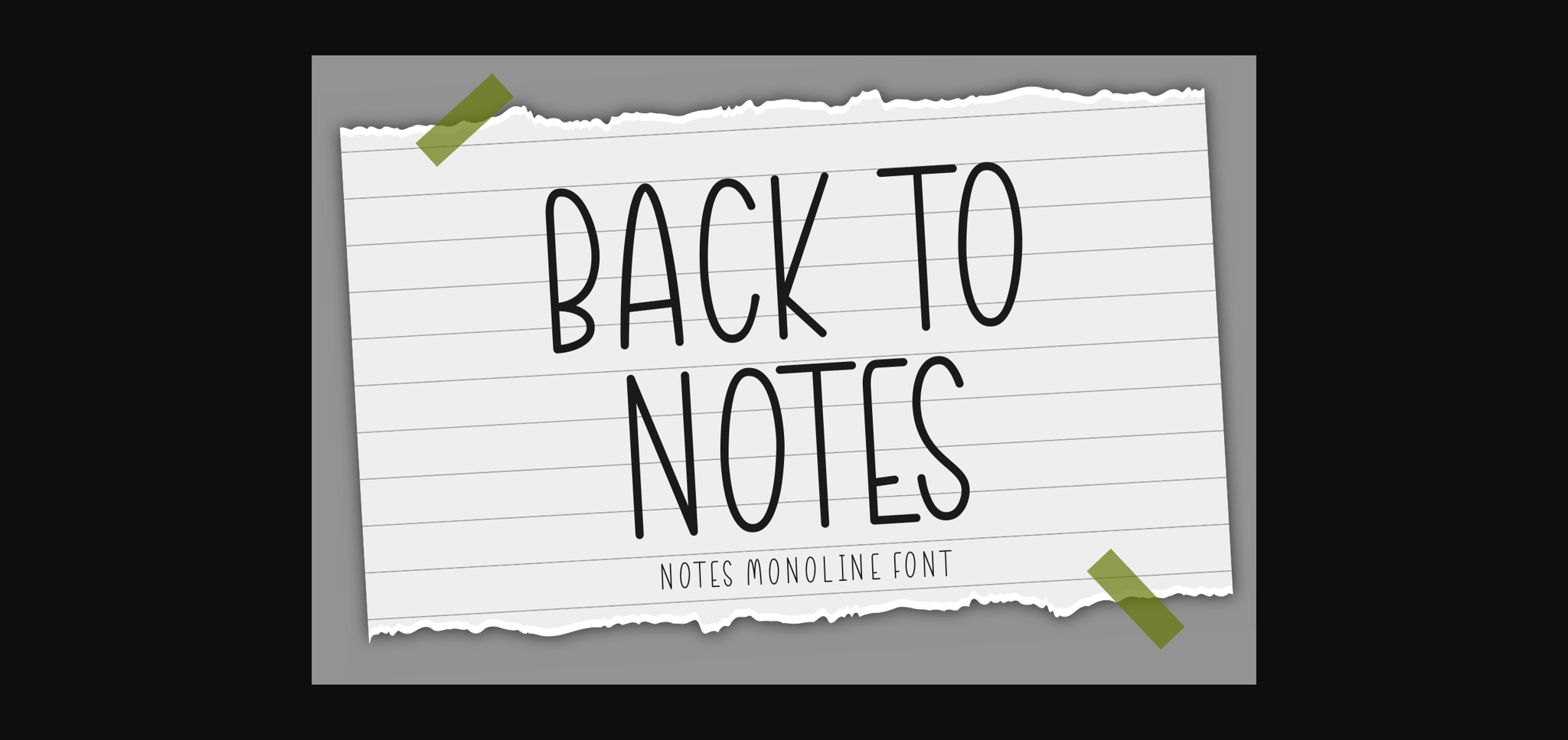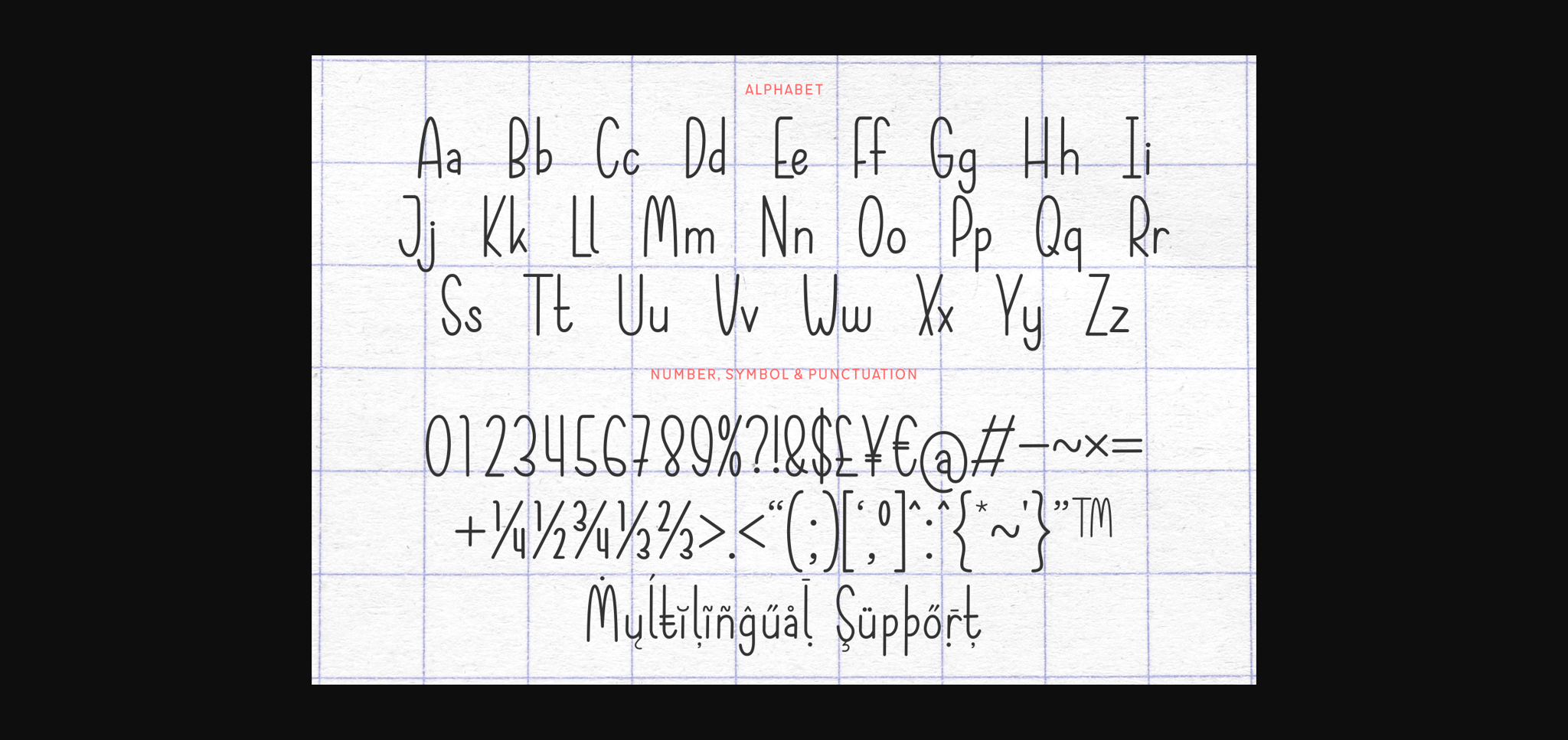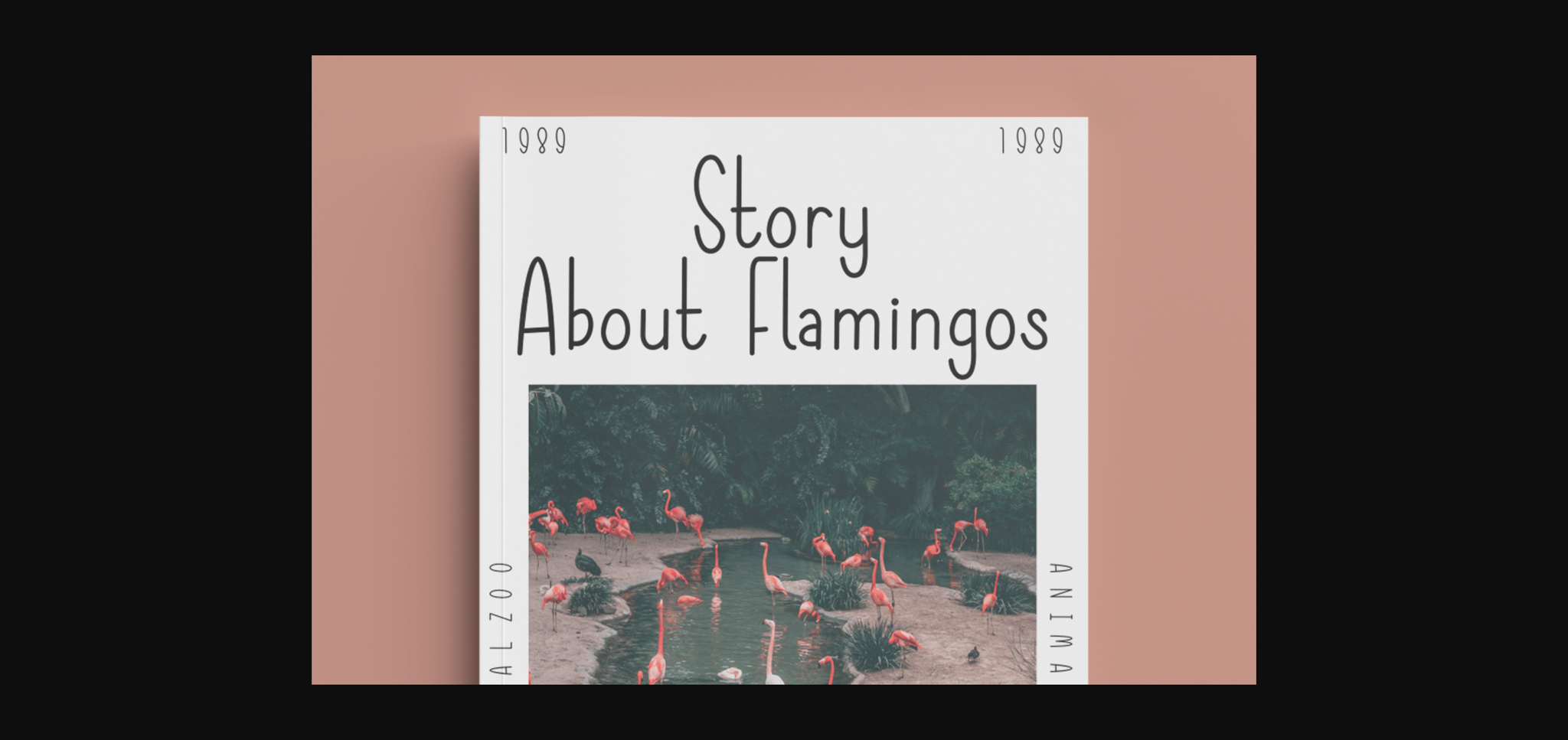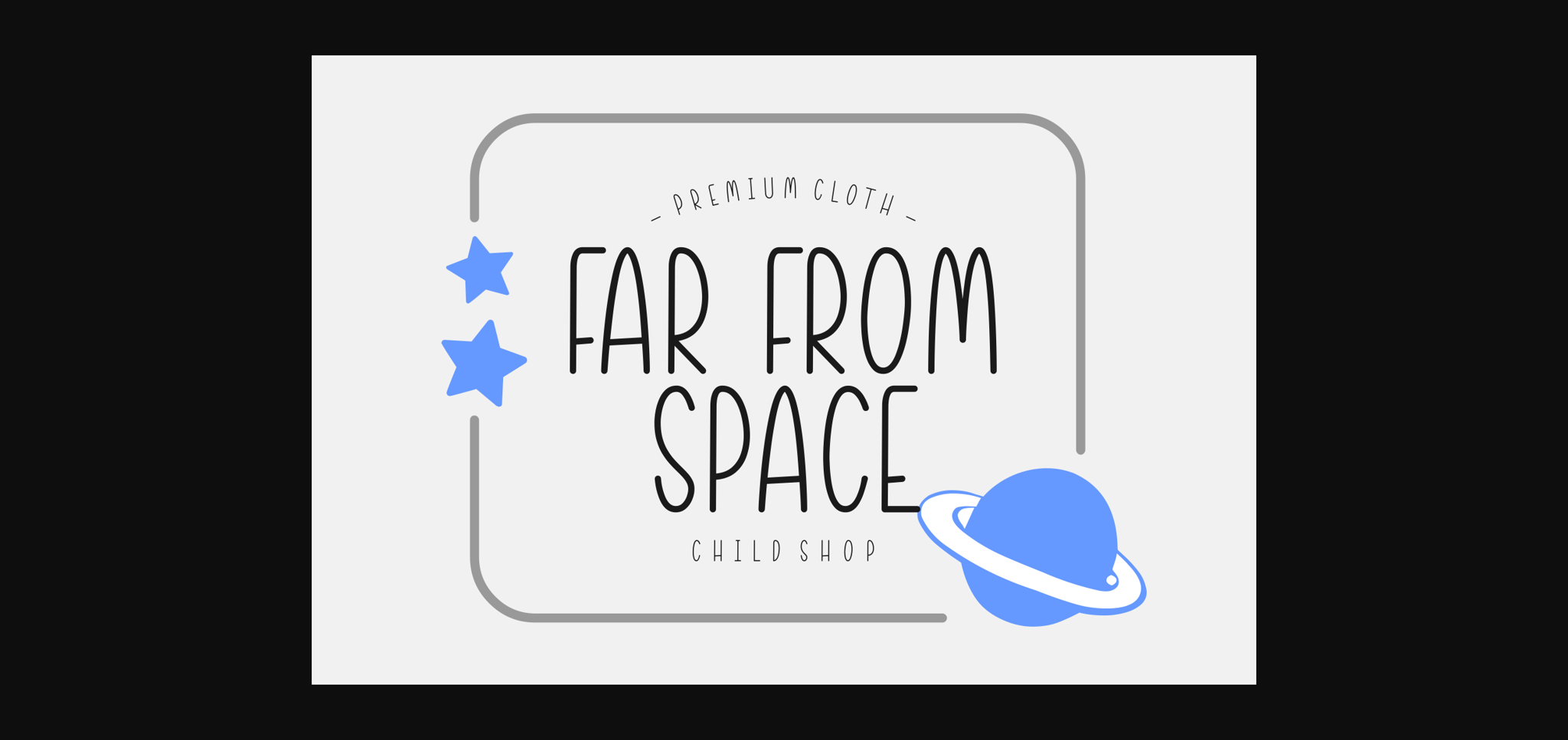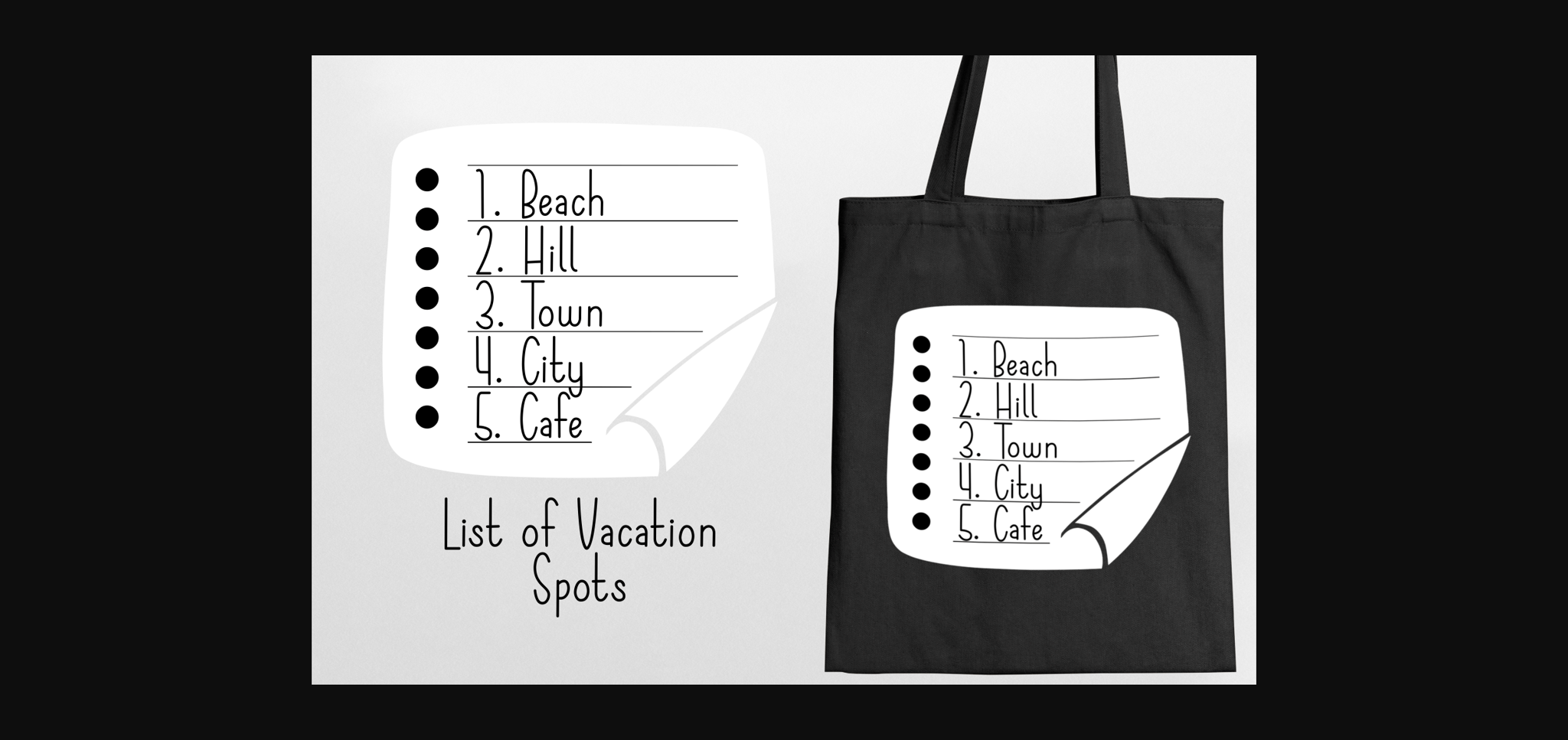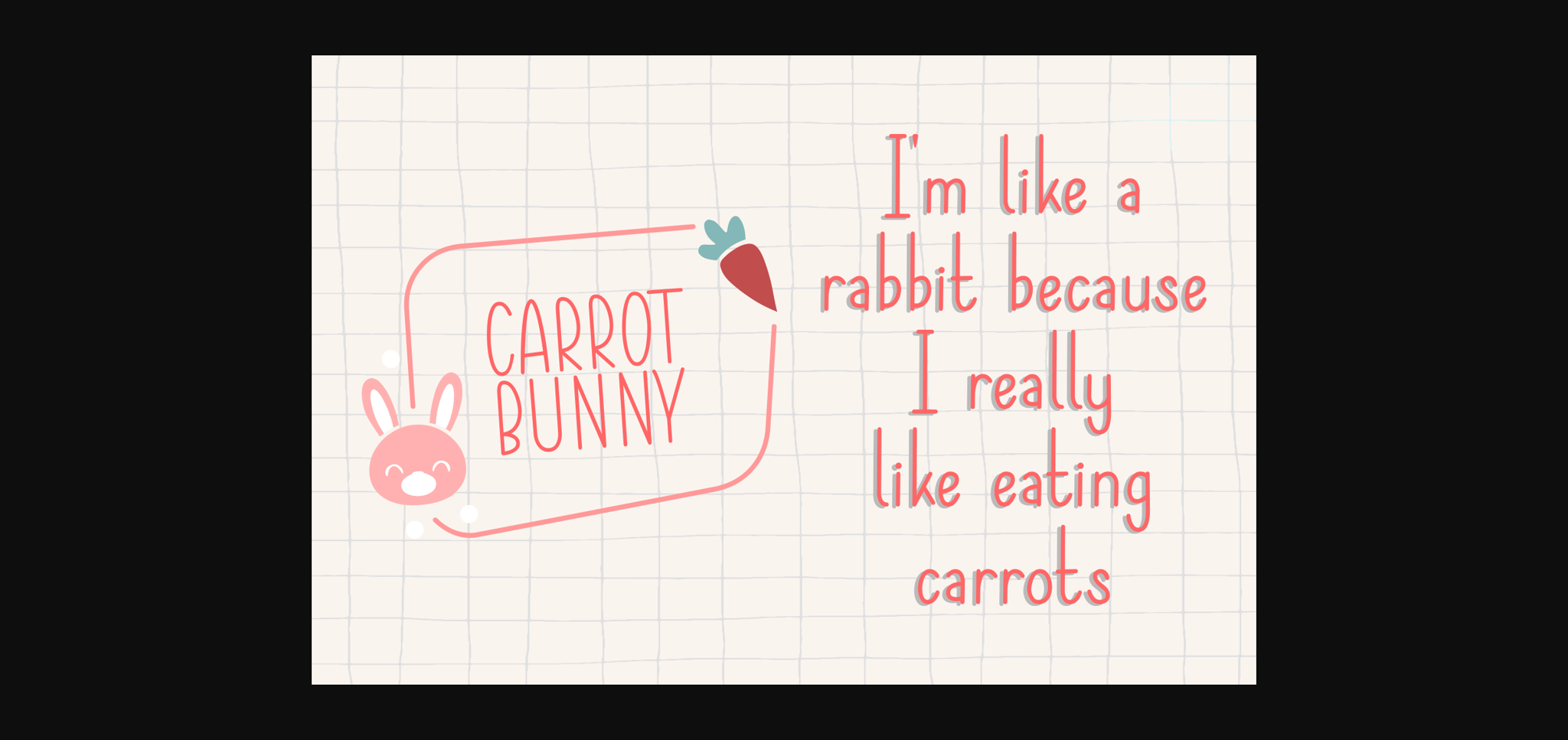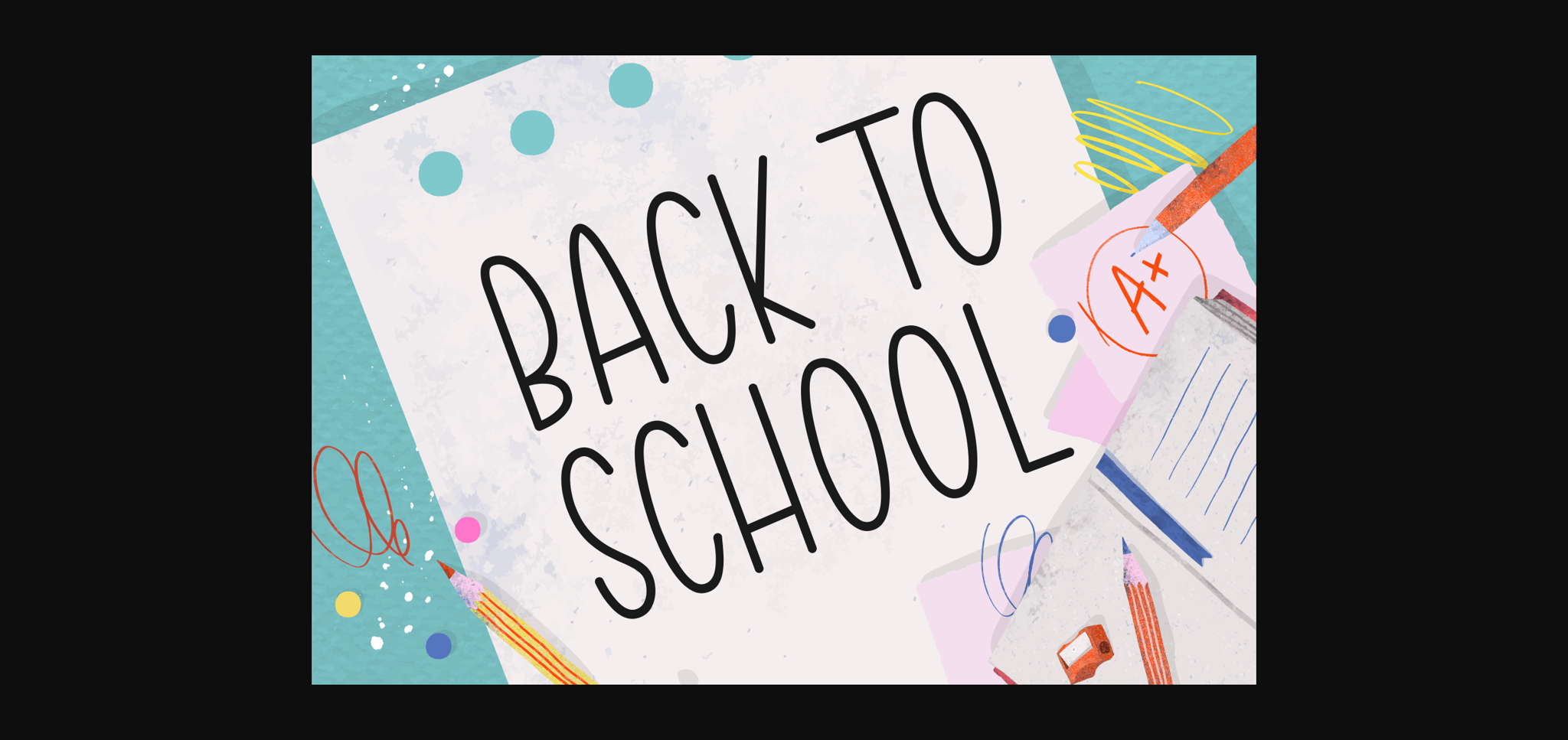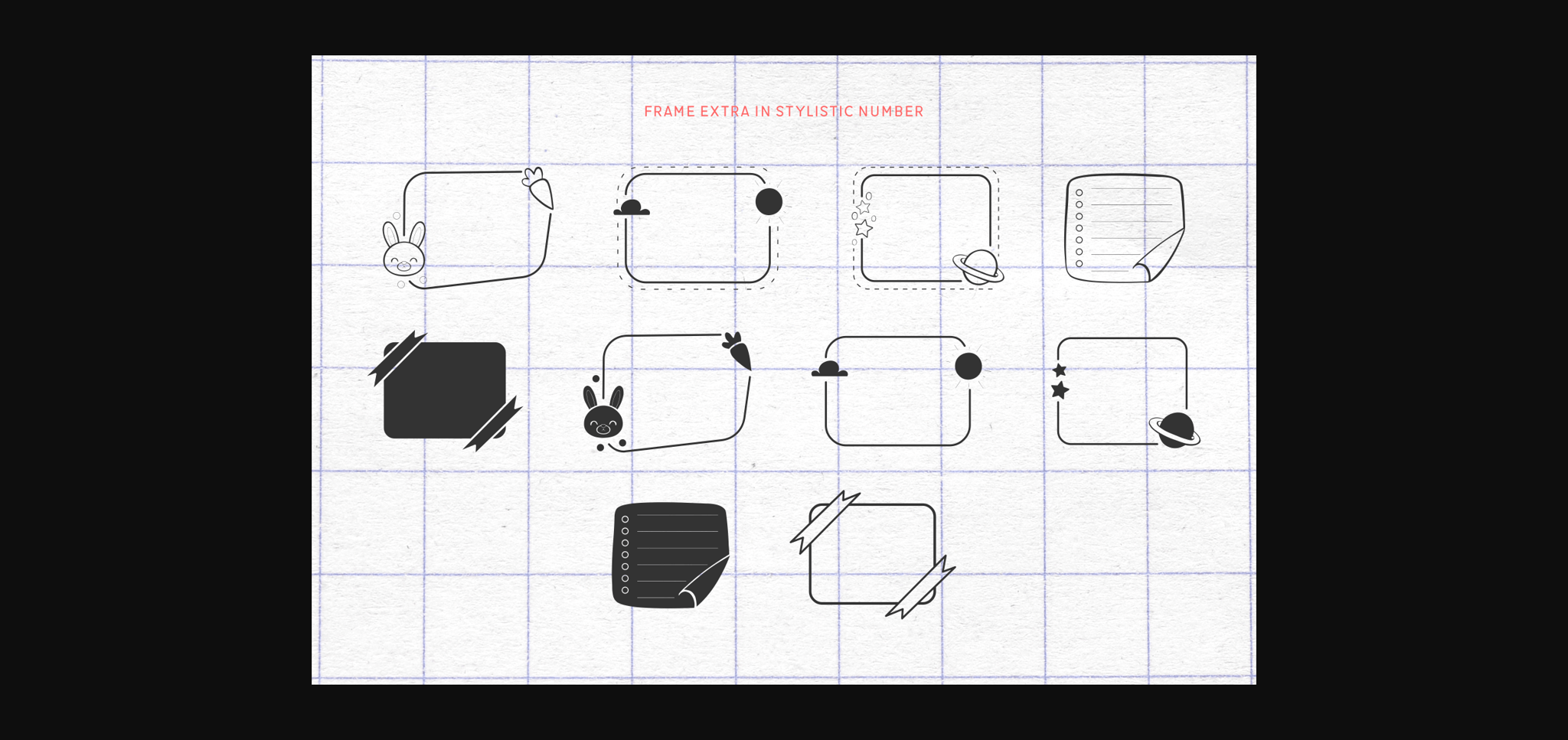
About Back to Notes Font
Back to Notes is a clean and simple sans serif font. Less is more with this minimalist typeface that has the potential to become your go-to font! You can use it for crafting projects, digital designs, fabric prints, and many more.
This font is PUA encoded, so you can easily access all the cute extra frames!